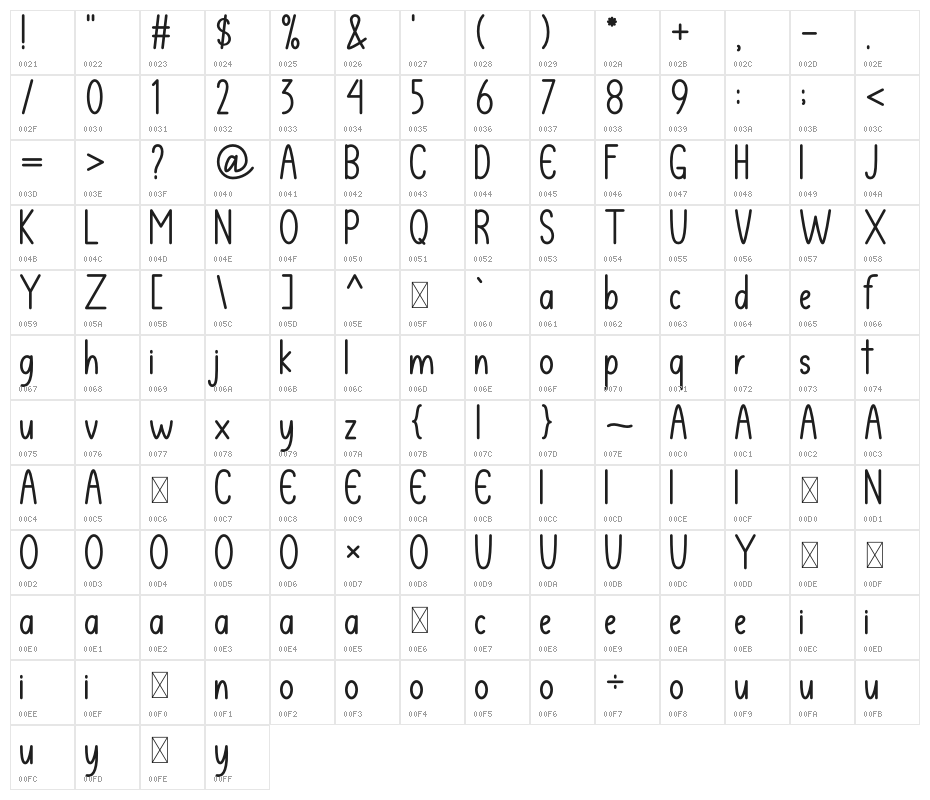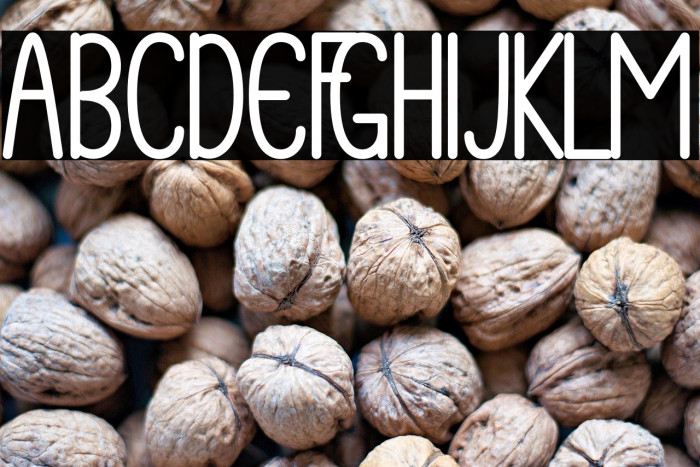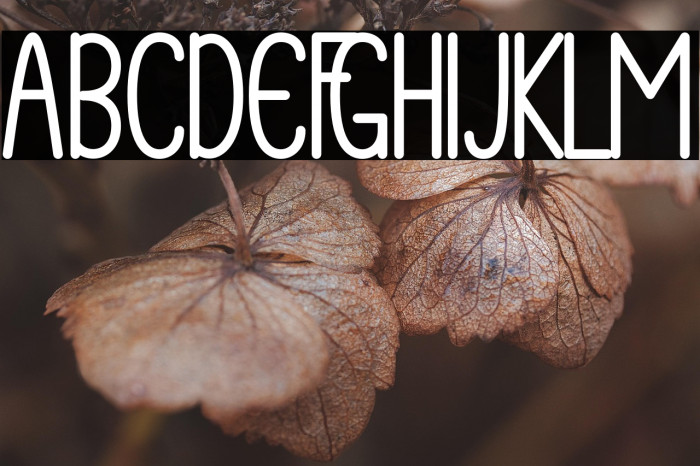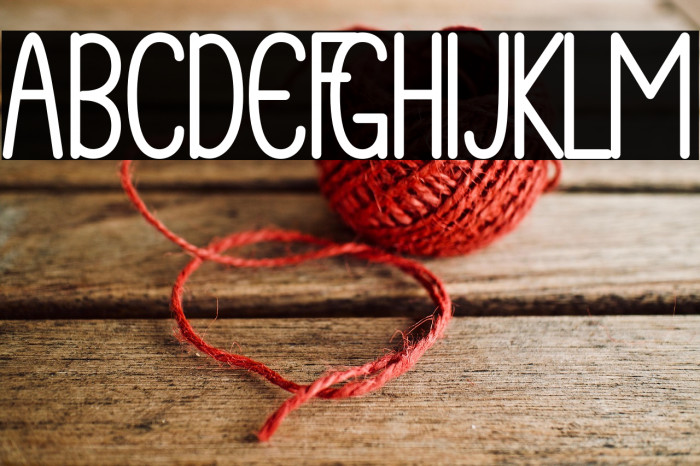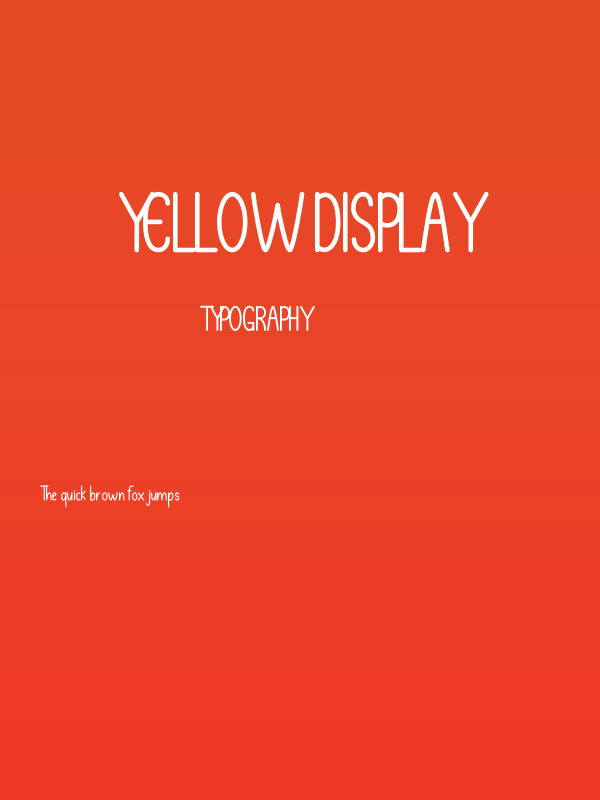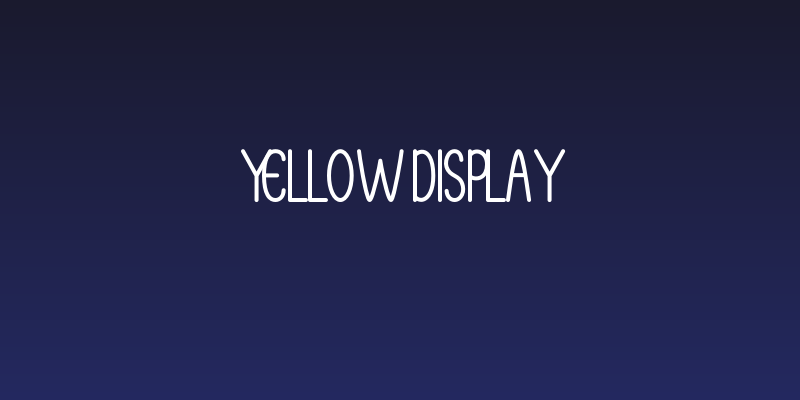
Yellow Display Font
Yellow Display Description
This font features a playful and modern design with tall, narrow characters that have a slightly rounded appearance. The uppercase letters are uniform in height, while the lowercase letters maintain a consistent baseline, adding to the font's readability. The numerals are distinct and clear, matching the overall style of the alphabet. Special characters are creatively designed, maintaining the font's cohesive look. The strokes are consistent in thickness, giving the font a clean and polished appearance. This font is ideal for projects that require a fun and approachable aesthetic.
Proposed ProjectsIdeal for children's books, playful branding, greeting cards, and casual invitations.